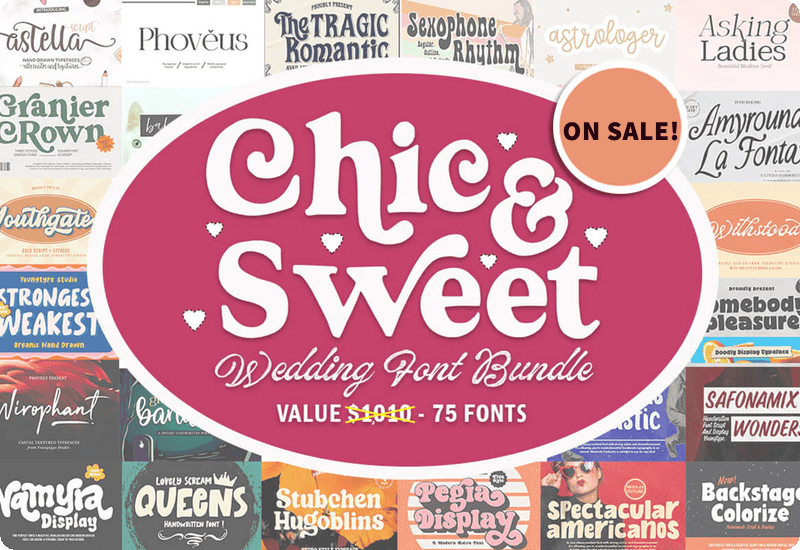
Looking for high-quality, professional fonts to make your creative work more visually appealing and memorable? The Chic & Sweet Wedding Font Bundle is a must-have collection designed for artists, crafters, designers, and entrepreneurs. Featuring 75 premium fonts with full commercial licensing, this bundle gives you everything needed to create elegant, trendy, and personalized designs with ease.
75 Premium Fonts for Every Creative Need
The Chic & Sweet Wedding Font Bundle includes a handpicked selection of fonts ranging from flowing script styles to striking display fonts. Each font is designed with exceptional attention to detail, offering personality, flair, and usability across various platforms and applications.
Popular Fonts Included:
- Granier Crown Display Font – Perfect for modern brand logos and social headers
- Moonshine Brush Script – A bold handwritten style great for packaging and apparel
- Gistesy Signature Font – Ideal for branding, signature logos, and luxury products
- Mery Honey Script – A playful yet elegant script font for invitations and cards
- Brightest Script – Adds a handcrafted touch to personal projects and web design
- The Tragic Romantic Display Font – Great for storytelling, book covers, and dramatic branding
- Astella Script – Timeless calligraphy for formal or wedding-focused design
- Freedom Script – Stylish and expressive, suited for digital ads and creative media